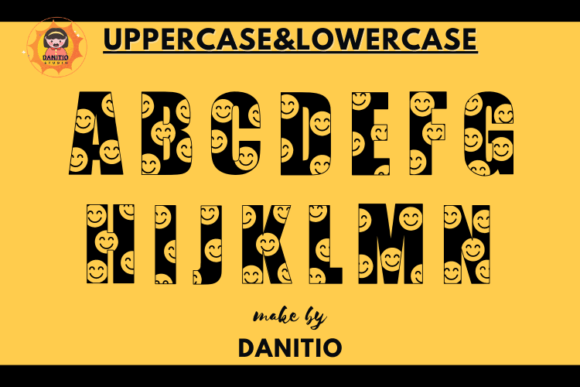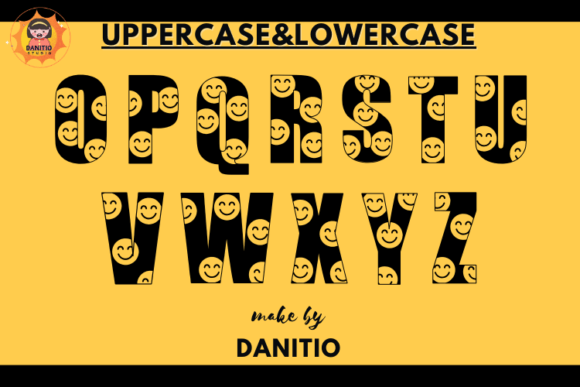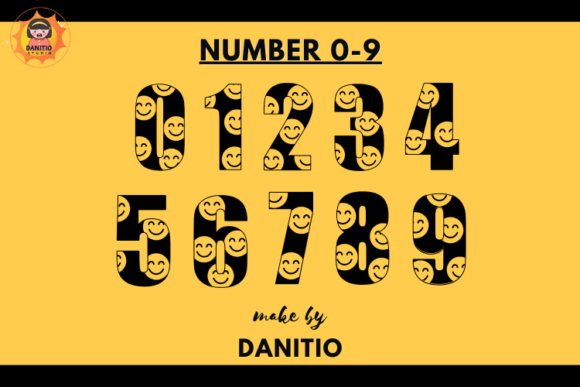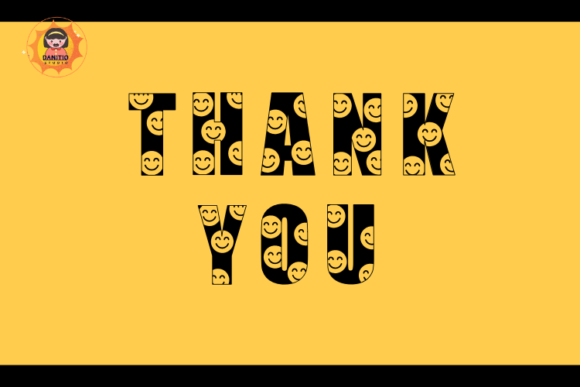
Introducing Happiness Font: The Ultimate Decorative Font for Joyful Designs
Are you tired of using the same old fonts for your designs? Do you want to add a touch of happiness and playfulness to your projects? Look no further than Happiness Font, a fun and beautiful decorative font that’s sure to bring a smile to your face. In this article, we’ll explore the features of Happiness Font, its uses, and why it’s a must-have for designers and crafters.
What is Happiness Font?
Happiness Font is a unique and eye-catching decorative font that’s designed to spread joy and positivity. The letters are adorned with numerous happy smiling faces, making it perfect for projects that require a playful and cheerful touch. This font is ideal for designers and crafters who want to add a personal touch to their work and make it stand out from the crowd.
Features of Happiness Font
- Unique and playful design: Happiness Font features a one-of-a-kind design that’s sure to grab attention. The letters are decorated with happy smiling faces, making it perfect for projects that require a fun and carefree vibe.
- High-quality and versatile: This font is designed to be versatile and can be used for a wide range of projects, from posters and flyers to social media posts and other digital products.
- Easily readable: Despite its decorative nature, Happiness Font is easily readable, making it perfect for use in titles, headings, and short paragraphs.
Uses of Happiness Font
Happiness Font is perfect for a variety of design projects, including:
- Posters and flyers: Add a touch of happiness to your posters and flyers with this fun and playful font.
- Social media posts: Make your social media posts stand out with Happiness Font, perfect for creating engaging and shareable content.
- Digital products: Use Happiness Font to create eye-catching digital products, such as ebooks, printables, and more.
- Crafting projects: Happiness Font is also perfect for crafters who want to add a personal touch to their projects, such as handmade cards, gift tags, and more.
Why Choose Happiness Font?
With so many fonts available, why choose Happiness Font? Here are a few reasons why:
- Unique and exclusive: Happiness Font is a one-of-a-kind font that’s sure to make your designs stand out from the crowd.
- High-quality design: Happiness Font features a high-quality design that’s perfect for professional and personal projects.
In conclusion, Happiness Font is a fun and beautiful decorative font that’s perfect for designers and crafters who want to add a touch of happiness to their projects. With its unique and playful design, high-quality features, and versatility, this font is sure to become a favorite in your design arsenal. So why wait? Download Happiness Font today and start creating joyful designs that bring a smile to people’s faces!